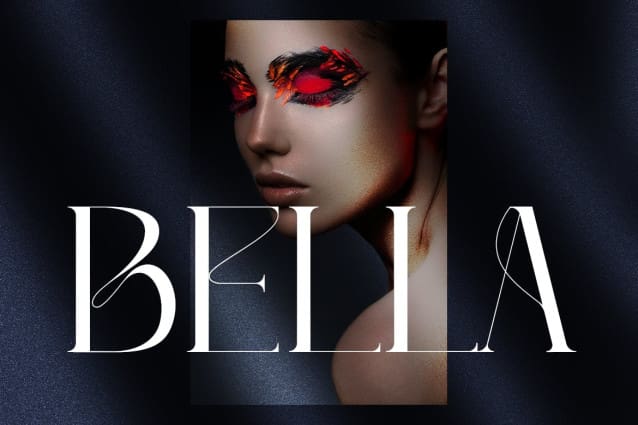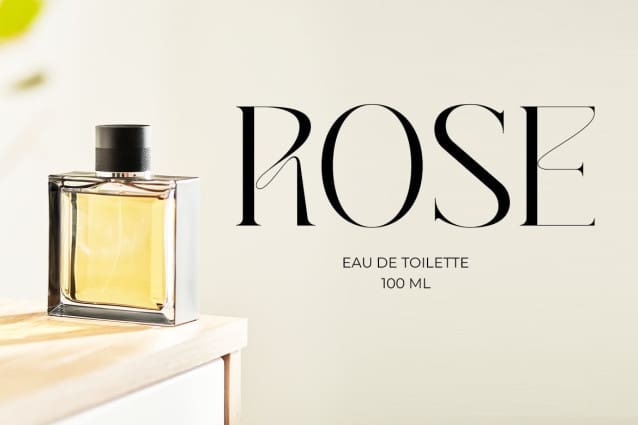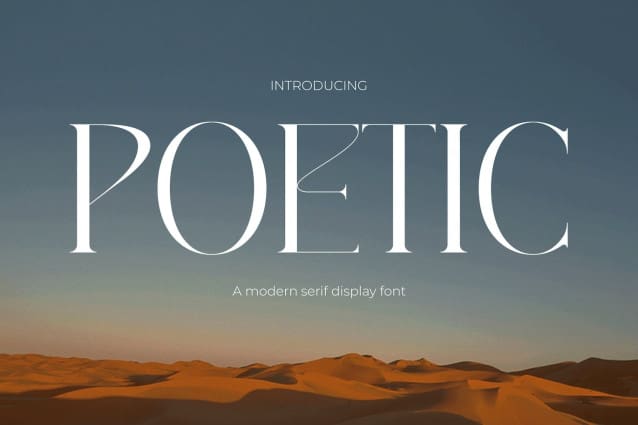
Poetic Font
Poetic Font, embodies timeless elegance with its classic Serif style. Its graceful lines offer a perfect balance between tradition and modernity. They are ideal for fashion, logos, inspirational quotes, invitations, captivating posters, warm greetings, elegant packaging, powerful branding, memorable wedding quotes, multi-purpose covers and professional business cards